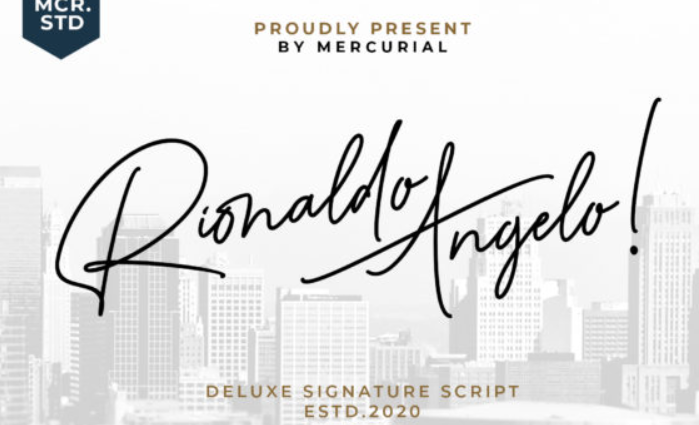
Rionaldo Angelo simplifies elegance into one truly outstanding handwritten font. It maintains its classy calligraphic influences while feeling contemporary and fresh. This versatility will appeal to a wide range of crafty ideas, from letterheads and titles, to stationery.
Signature fonts are some of my favorites! Adopt this as your own personal signature, use it to add some flair to your brand – whatever you want! I love that this particular signature font is very readable, making it perfect for a wide variety of projects.